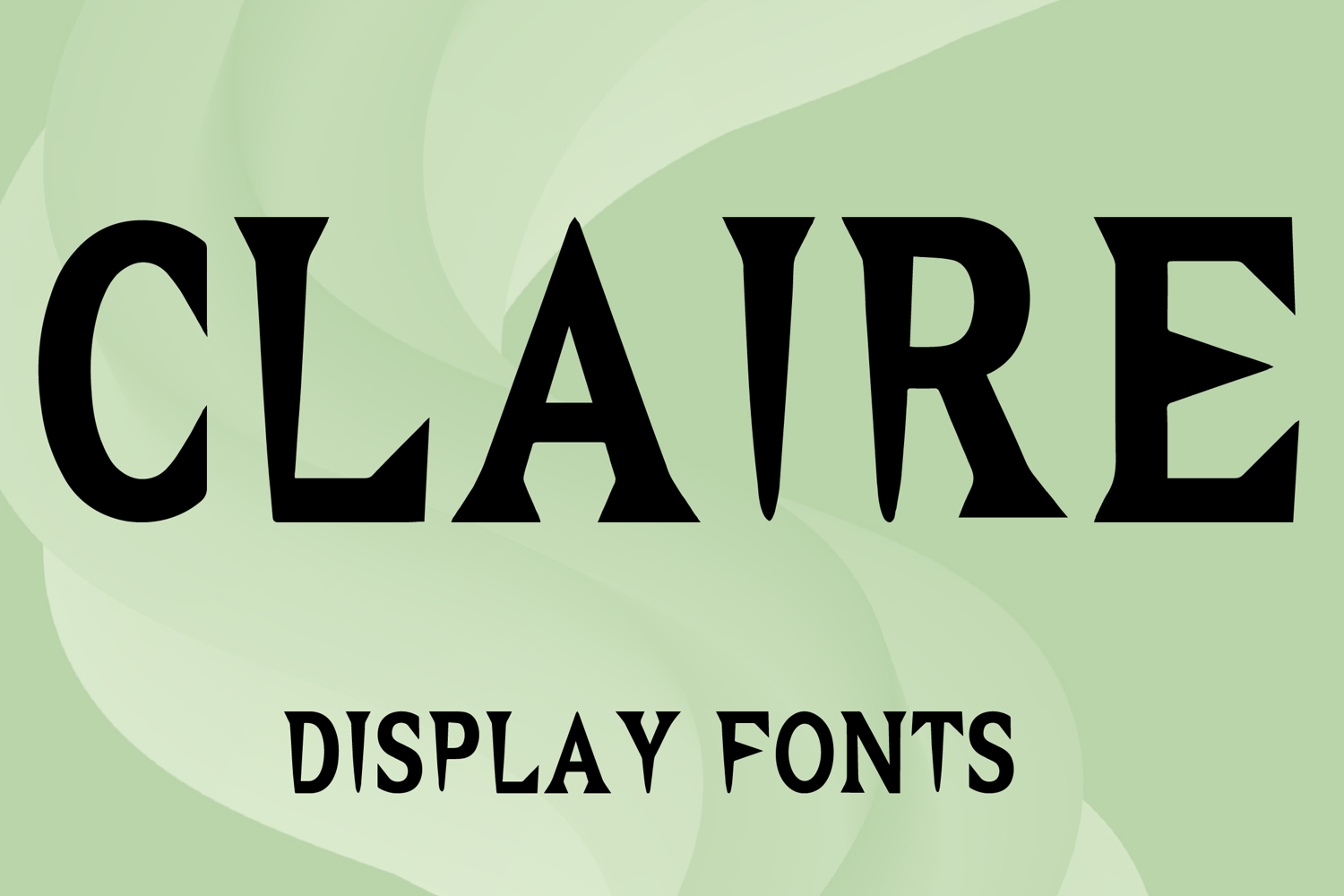
CLAIRE
CLAIRE is a bold display font with a refined modern style and elegant dramatic character. Its uppercase letterforms feature sharp tapered strokes, clean geometric structure, and distinctive pointed details that create a stylish, confident, and eye-catching look. Designed with uppercase letters A–Z and numbers 0–9, CLAIRE is perfect for branding, posters, packaging, logos, headlines, social media graphics, and creative projects that need a strong and memorable statement.